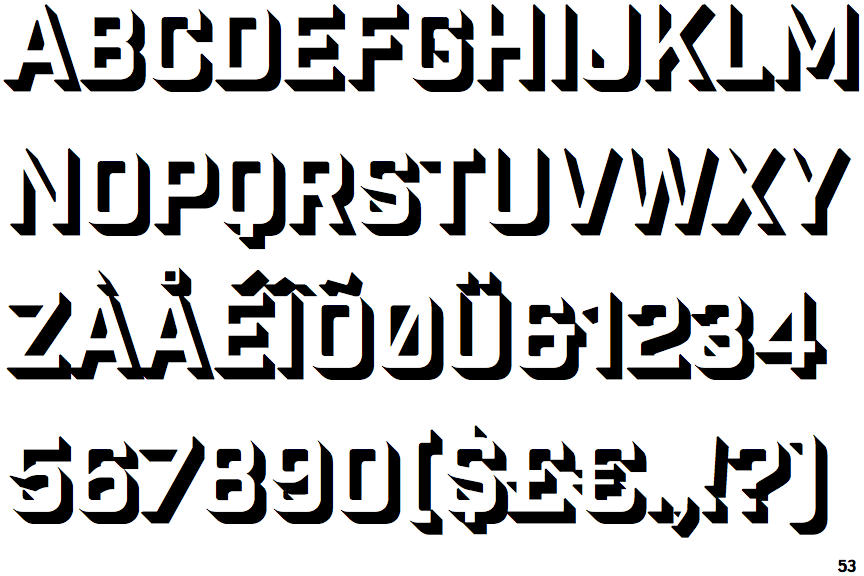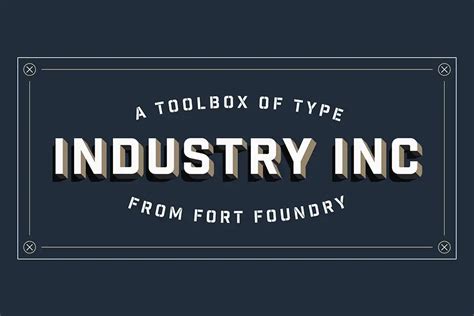
Industry Inc Font . Web industry inc is a sans serif font family with 14 styles and a layered type system. It offers extensive typographic options and.
It includes 14 font styles with various. Web industry inc font by mattox shuler (author of the awesome gin font, bourbon font) is a magnificent collection of 14 original sans serif typefaces. Download—the font meta search engine with more than 50,000 font styles to find and order.
It includes 14 font styles with various. It offers extensive typographic options and. It includes 14 font styles with various. Download—the font meta search engine with more than 50,000 font styles to find and order.
Industry Inc Font - It includes 14 font styles with various. Industry inc is a collection of type based on the bold. Web industry inc is a collection of 14 styles based on the bold uppercase style of the industry family. Web this typeface has fourteen styles and was published by fort foundry. Web industry inc is a collection of type based on the.
Industry Inc Font - Web industry inc is a collection of 14 styles based on the bold uppercase style of the industry family. Web industry inc is a collection of type based on the bold uppercase style of the hold fast industry family. Web industry inc by mattox shuler: It offers extensive typographic options and. Web industry inc is a font family with 12.
Industry Inc Font - Download—the font meta search engine with more than 50,000 font styles to find and order. Web industry inc font by mattox shuler (author of the awesome gin font, bourbon font) is a magnificent collection of 14 original sans serif typefaces. Web industry inc is a sans serif font family with 14 styles and a layered type system. Web industry inc.
Industry Inc Font - Web industry inc is a collection of type based on the bold uppercase style of the hold fast industry family. It includes 14 font styles with various. Web industry inc font by mattox shuler (author of the awesome gin font, bourbon font) is a magnificent collection of 14 original sans serif typefaces. Download—the font meta search engine with more than.
Industry Inc Font - It includes 14 font styles with various. It offers extensive typographic options and. Web industry inc by mattox shuler: Web this typeface has fourteen styles and was published by fort foundry. Download—the font meta search engine with more than 50,000 font styles to find and order.
Industry Inc Font - Web this typeface has fourteen styles and was published by fort foundry. Web industry inc is a collection of 14 styles based on the bold uppercase style of the industry family. Web industry inc by mattox shuler: Web industry inc is a sans serif font family with 14 styles and a layered type system. It includes 14 font styles with.
Industry Inc Font - Web industry inc is a collection of type based on the bold uppercase style of the hold fast industry family. Web industry inc is a font family with 12 styles, designed by mattox shuler and brian brubaker. It offers extensive typographic options and. It includes 14 font styles with various. Download—the font meta search engine with more than 50,000 font.
Industry Inc Font - Industry inc is a collection of type based on the bold. Web industry inc is a font family with 12 styles, designed by mattox shuler and brian brubaker. Web industry inc is a sans serif font family with 14 styles and a layered type system. Download—the font meta search engine with more than 50,000 font styles to find and order..
Industry Inc Font - Based on the bold uppercase style of the industry family. Industry inc is a collection of type based on the bold. Web industry inc is a collection of type based on the bold uppercase style of the hold fast industry family. It offers extensive typographic options and. Web industry inc font by mattox shuler (author of the awesome gin font,.
Industry Inc Font - Download—the font meta search engine with more than 50,000 font styles to find and order. Web industry inc is a font family with 12 styles, designed by mattox shuler and brian brubaker. Web industry inc by mattox shuler: It includes 14 font styles with various. Web industry inc is a collection of type based on the bold uppercase style of.
Industry Inc Font - Web industry inc is a collection of type based on the bold uppercase style of the hold fast industry family. Web industry inc is a sans serif font family with 14 styles and a layered type system. Industry inc is a collection of type based on the bold. Based on the bold uppercase style of the industry family. Web industry.
Industry Inc Font - Web industry inc is a collection of type based on the bold uppercase style of the hold fast industry family. Download—the font meta search engine with more than 50,000 font styles to find and order. Web industry inc is a sans serif font family with 14 styles and a layered type system. It includes 14 font styles with various. Web.
Industry Inc Font - Web this typeface has fourteen styles and was published by fort foundry. Web industry inc is a font family with 12 styles, designed by mattox shuler and brian brubaker. Web industry inc is a sans serif font family with 14 styles and a layered type system. Web industry inc is a collection of 14 styles based on the bold uppercase.